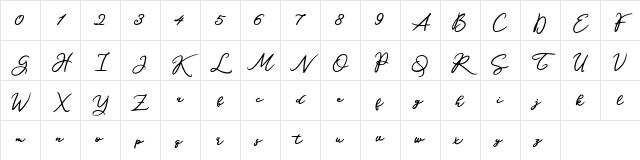
Complete Katrine Holland glyph index. Displaying only characters natively supported by Katrine Holland font.
Katrine Holland is a composed and adaptable typeface that performs quietly and consistently across a wide range of design contexts.
Who designed the Katrine Holland font?